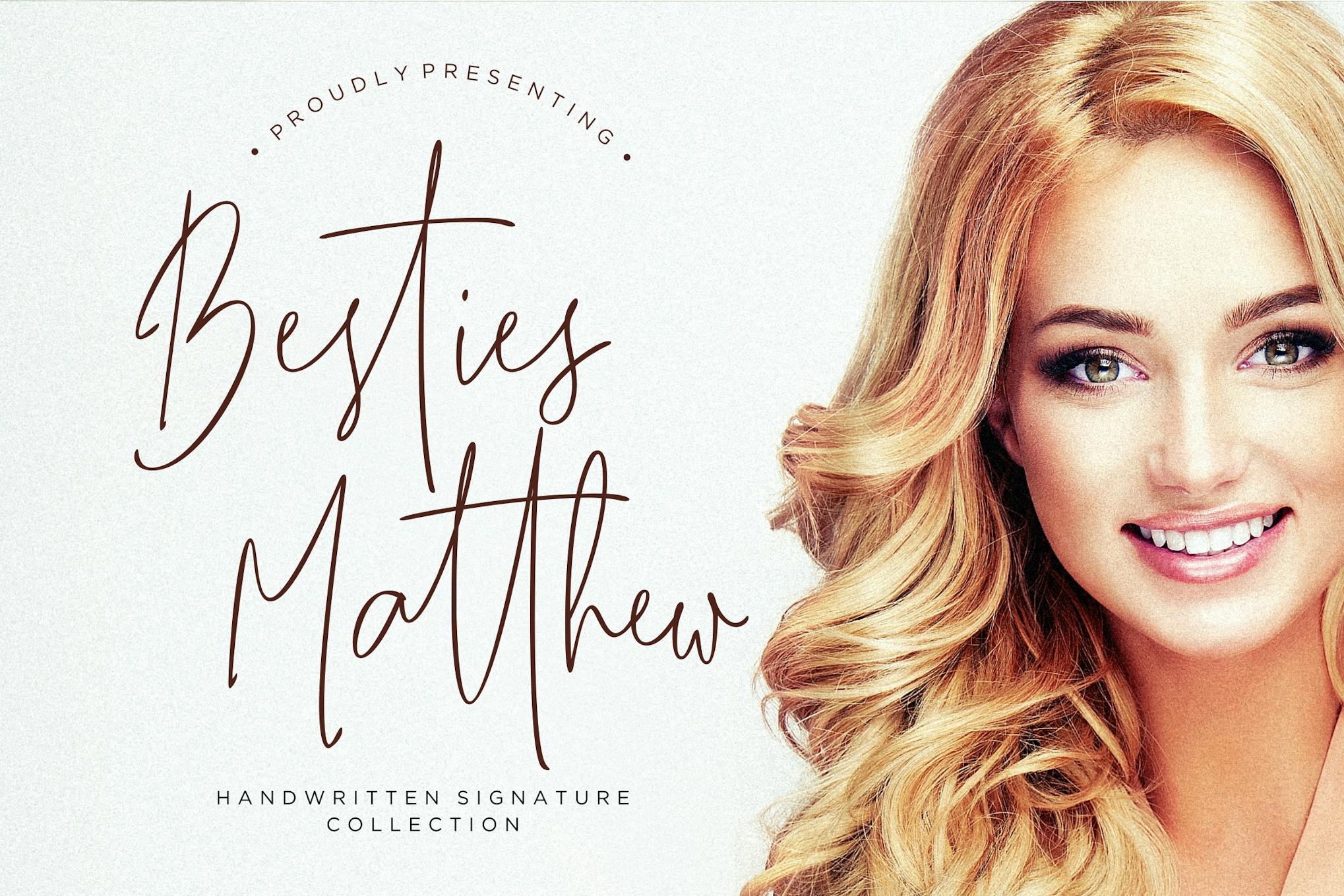
Besties Matthew Signature Wedding Font
The Besties Matthew Signature Wedding Font excels in friendship design applications including companionable wedding invitations, friendly bridal branding, social ceremony logos, companionable product packaging, friendly business cards, social portfolios, companionable greeting cards, friendly social media graphics, social event signage, and companionable marketing materials. Its friendly script style makes it perfect for projects requiring companionable elegance that communicates friendship and establishes social brand positioning with audiences seeking friendly wedding experiences and companionable sophistication.
What makes the Besties Matthew Signature Wedding Font truly exciting is its exceptional ability to capture the friendly warmth and companionable beauty of social weddings through warmly crafted letterforms. The font features flowing, friendly strokes with companionable flourishes and social proportions that create a distinctly welcoming appearance. Each character displays remarkable attention to friendly detail with companionable curves, social connections, and welcoming spacing that give text a beautifully friendly, hand-lettered quality. The font's companionable character and friendly rhythm create an atmosphere of social elegance while maintaining companionable sophistication and wedding authenticity.
The Besties Matthew Signature Wedding Font family typically includes regular weight with extensive character coverage, featuring uppercase and lowercase letters, numerals, punctuation marks, and international characters. The typeface often incorporates stylistic alternates, contextual ligatures, and friendly swashes that enhance its signature companionship. These additional elements provide designers with creative flexibility to customize text appearance and achieve more natural-looking social handwriting that reflects the font's friendly and companionable character.
This friendly signature font distinguishes itself through its remarkable balance of companionable charm and sophisticated elegance. Unlike antisocial or unfriendly fonts that lack companionable appeal, Besties Matthew Signature Wedding Font embraces the power of friendly design to create social connections with companionable wedding audiences. The font's friendly character makes it essential for social wedding planners, companionable brands, and friendly celebration businesses where creating companionable wedding experiences and friendly memories is fundamental to success in social wedding markets.
Besties Matthew is consisting of a fashionable signature-style script make looks elegant, classy and touch of luxury and stylish. This font was created to look as close to a natural handwritten script as possible by including over 100 ligatures. Besties Matthew is perfect for branding projects, logo, wedding designs, social media posts, advertisements, product packaging, product designs, label, photography, watermark, invitation, stationery and any projects that need handwriting taste. What's Included : Besties Matthew (OTF/TTF/WOFF) More than 500 of glyphs Tons of Ligature Works on PC & Mac Simple installations Accessible in the Adobe Illustrator, Adobe Photoshop, Adobe InDesign, even work on Microsoft Word. PUA Encoded Characters - Fully accessible without additional design software. Fonts include multilingual support for; Afrikaans, Albanian, Catalan, Danish, Dutch, English, French, Hungarian, Icelandic, Italian, Spanish, Portuguese, German, Swedish, Norweigen, Polish, Turkish, Indonesian, Zulu Hope you enjoy with our font!